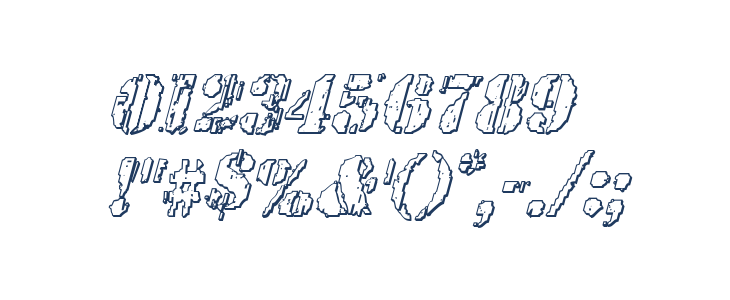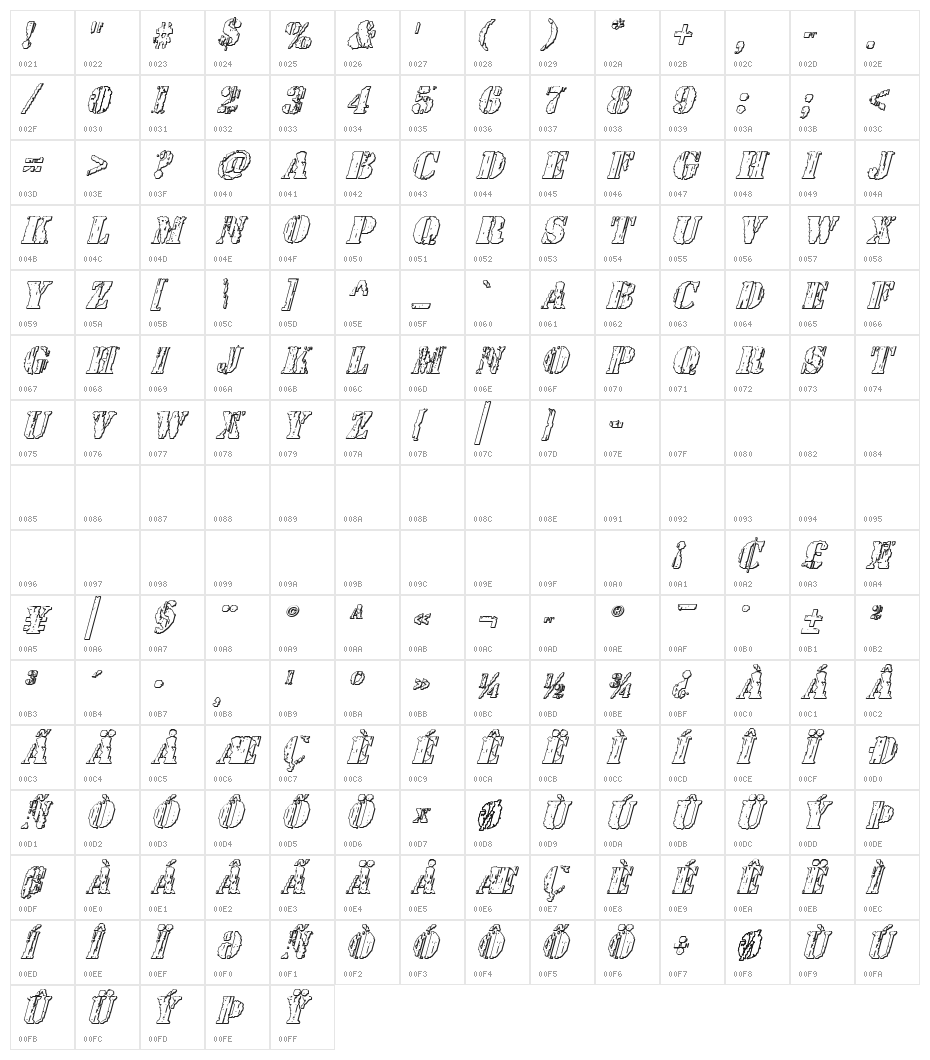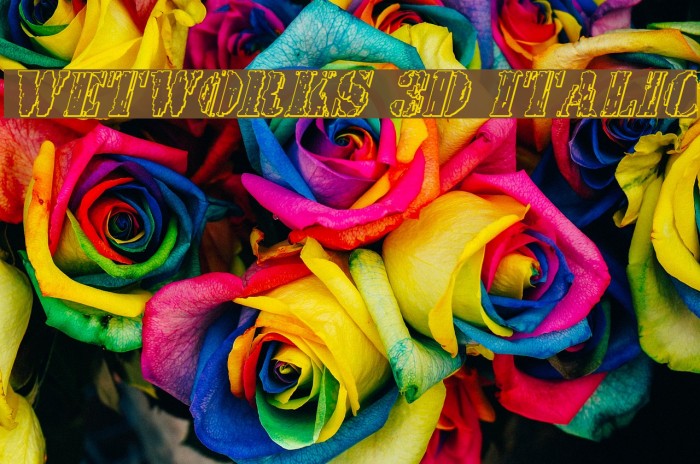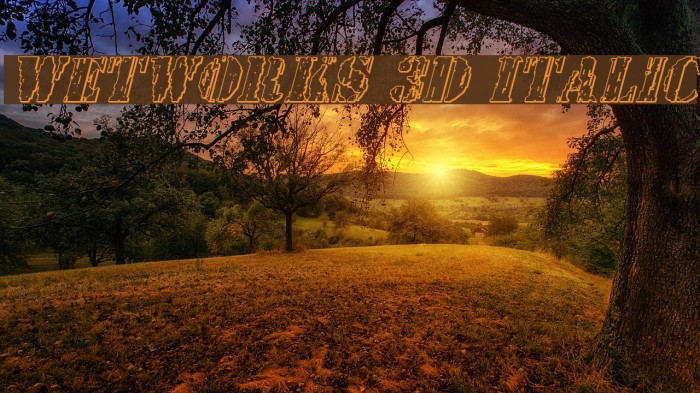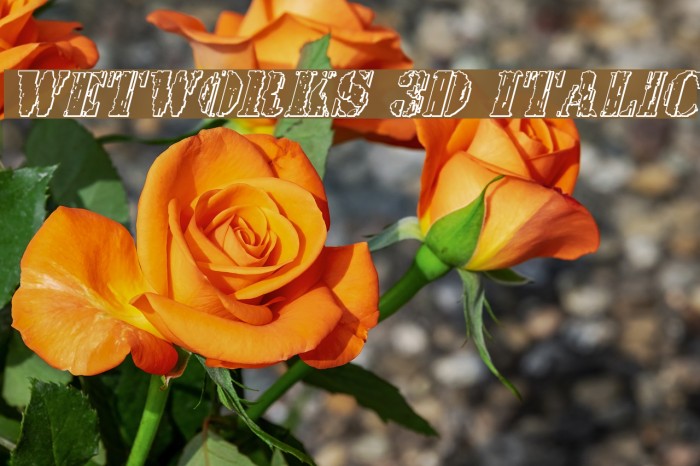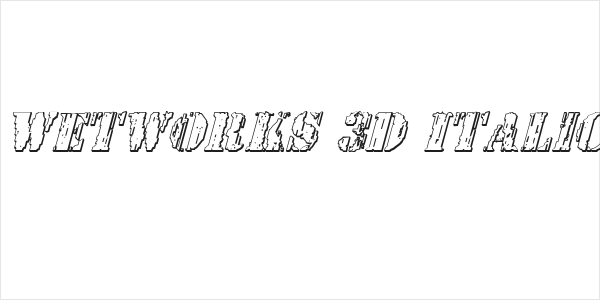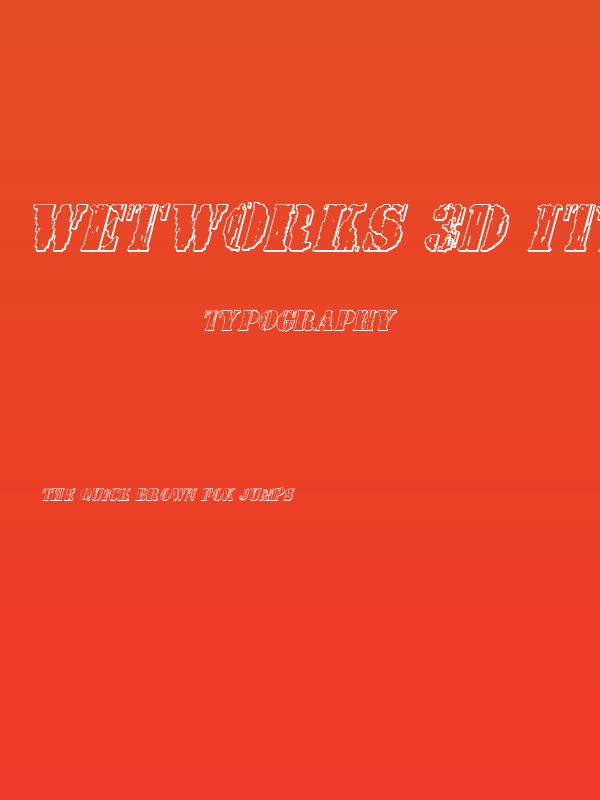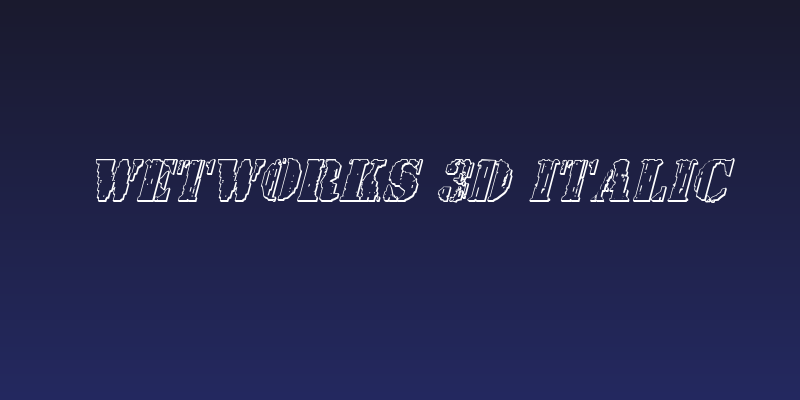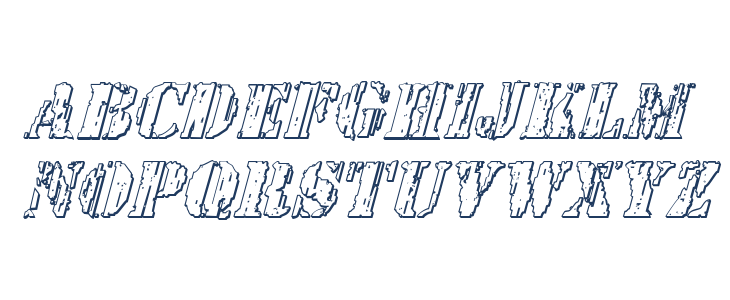
This font features a bold, italicized style with a distinct 3D effect, giving each character a sense of depth and dimension. The edges are rugged and irregular, creating a textured appearance that adds a dynamic and edgy feel. The uppercase and lowercase letters maintain a consistent style, with numbers and special characters following the same design principles. This font's unique aesthetic makes it stand out, offering a visually striking option for creative projects.
| Overall Style | Modern, Edgy |
| Proposed Projects | Ideal for posters, album covers, video game graphics, and edgy branding materials. |